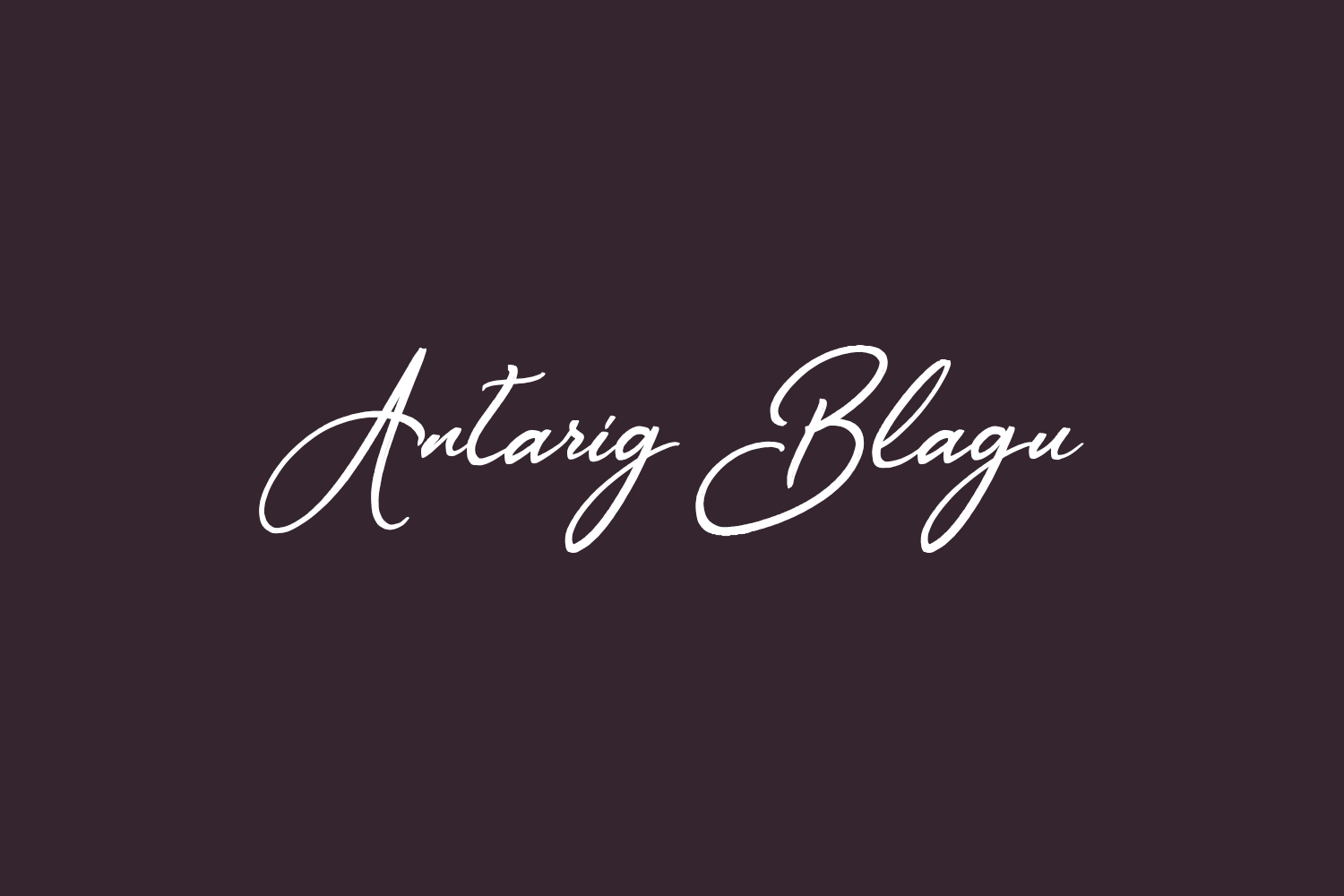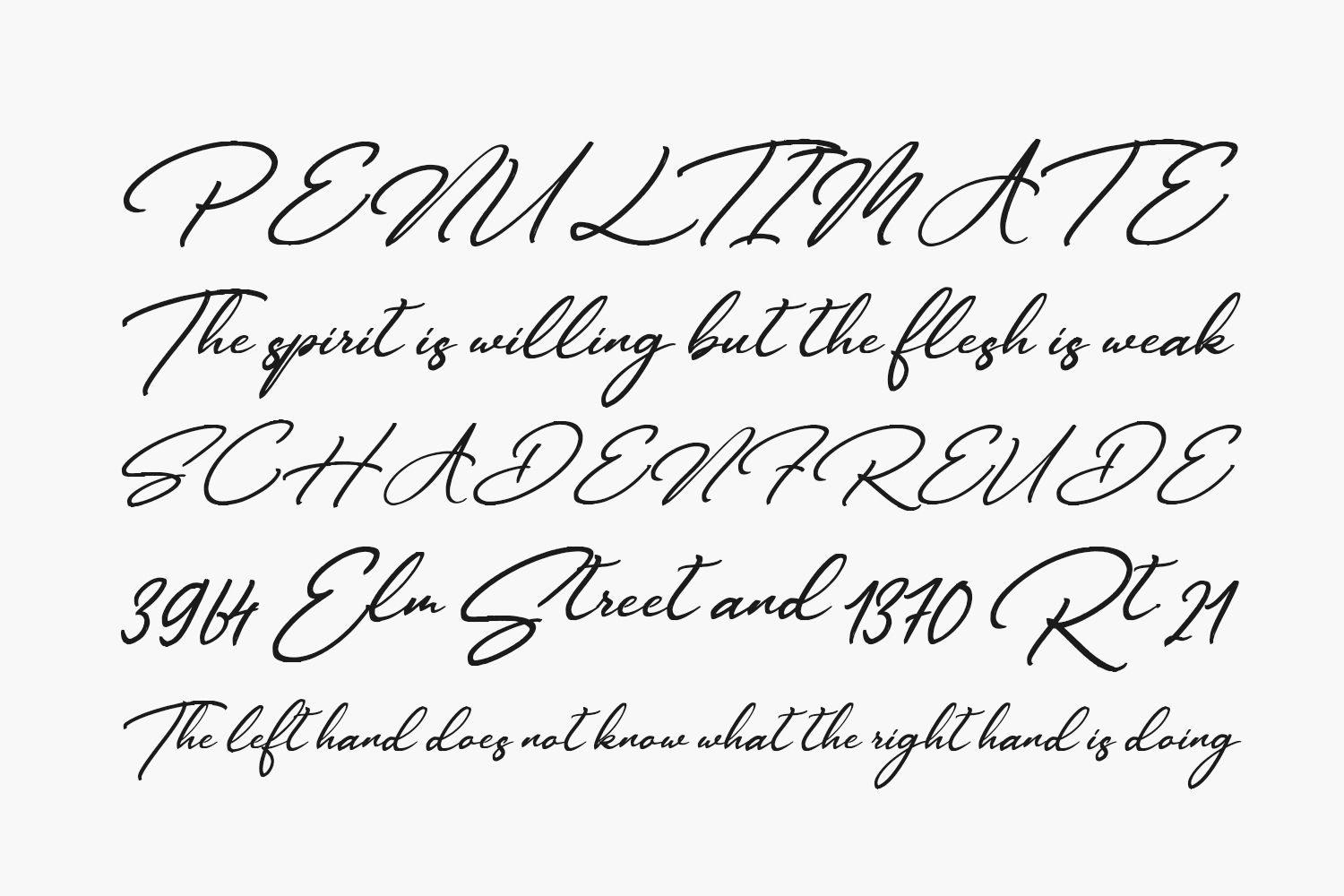
Antarig Blagu Free Font is a thin and modern handwritten font. Fall in love with its completely different and timeless style and use it to create spectacular designs. Antarig Blagu Free Font was designed by Pineungtype Missinklab and is free for personal use only. Please purchase the full version for commercial use.